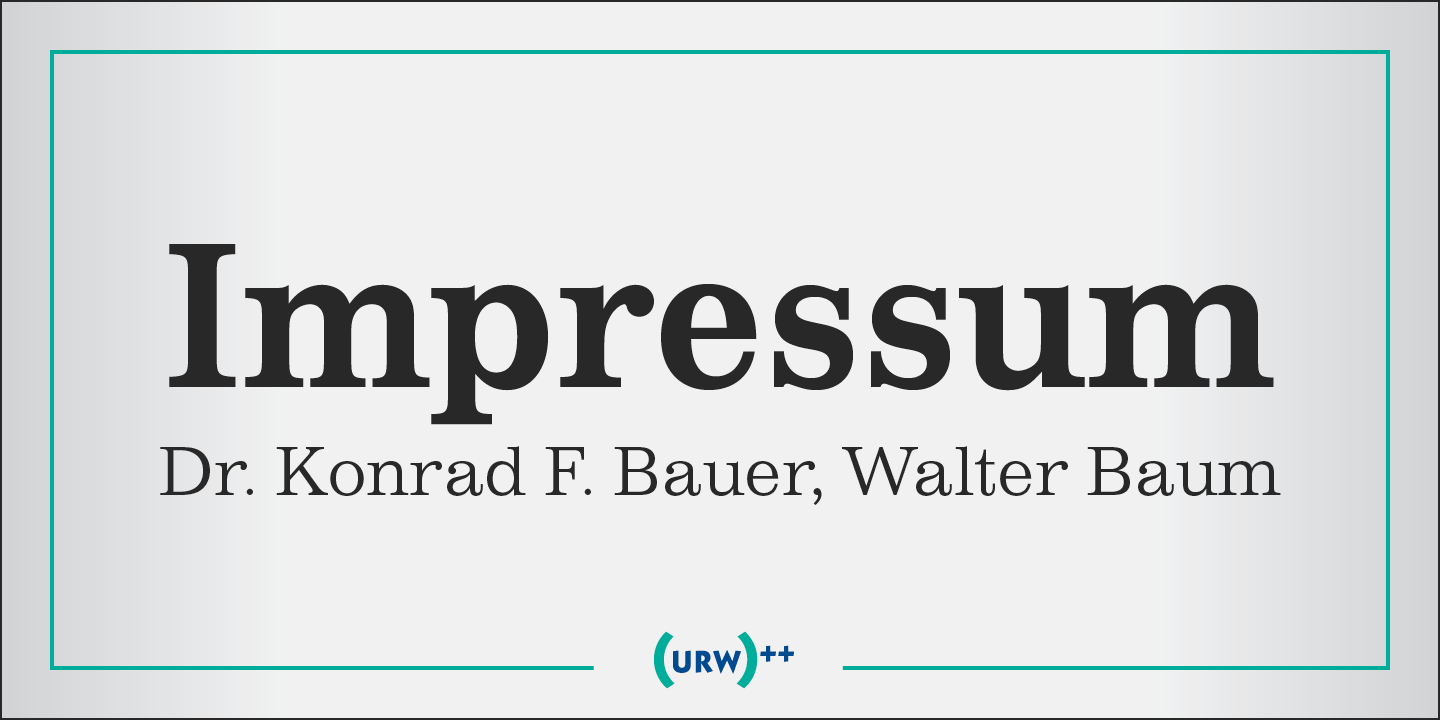
Impressum Font Free Download – Classic Elegance with Modern Precision
Elevate your designs with Impressum Font Free Download, a refined serif typeface that blends traditional sophistication with contemporary clarity. Perfect for luxury branding, editorial layouts, and projects demanding timeless typographic excellence.
Why Impressum Font Stands Out
Timeless Serif Design – Beautifully balanced letterforms with subtle contrast
Multiple Weight Options – From delicate Light to authoritative Bold
Exceptional Readability – Performs flawlessly in print and digital
Versatile Character – Adapts seamlessly from corporate to creative
Premium Typography Features
Comprehensive Character Set – Includes ligatures and alternates
OpenType Features – Professional typographic controls
Multilingual Support – Covers 75+ languages
Perfect Kerning – Meticulously adjusted spacing
Experience this elegant typeface in your:
High-end brand concepts
Magazine layout experiments
Book cover designs
Personal portfolio projects
Where Impressum Font Excels
1. Luxury Branding
Premium product packaging
Sophisticated corporate identities
2. Editorial Excellence
Beautiful book typography
Magazine headlines with presence
3. Digital Sophistication
Elegant website headers
Refined UI typography
4. Stationery Design
Business cards with impact
Executive correspondence
Design Tip: Pair with a clean sans-serif for stunning contemporary contrast!
Perfect for: Designers who appreciate typography that combines heritage with modern performance.